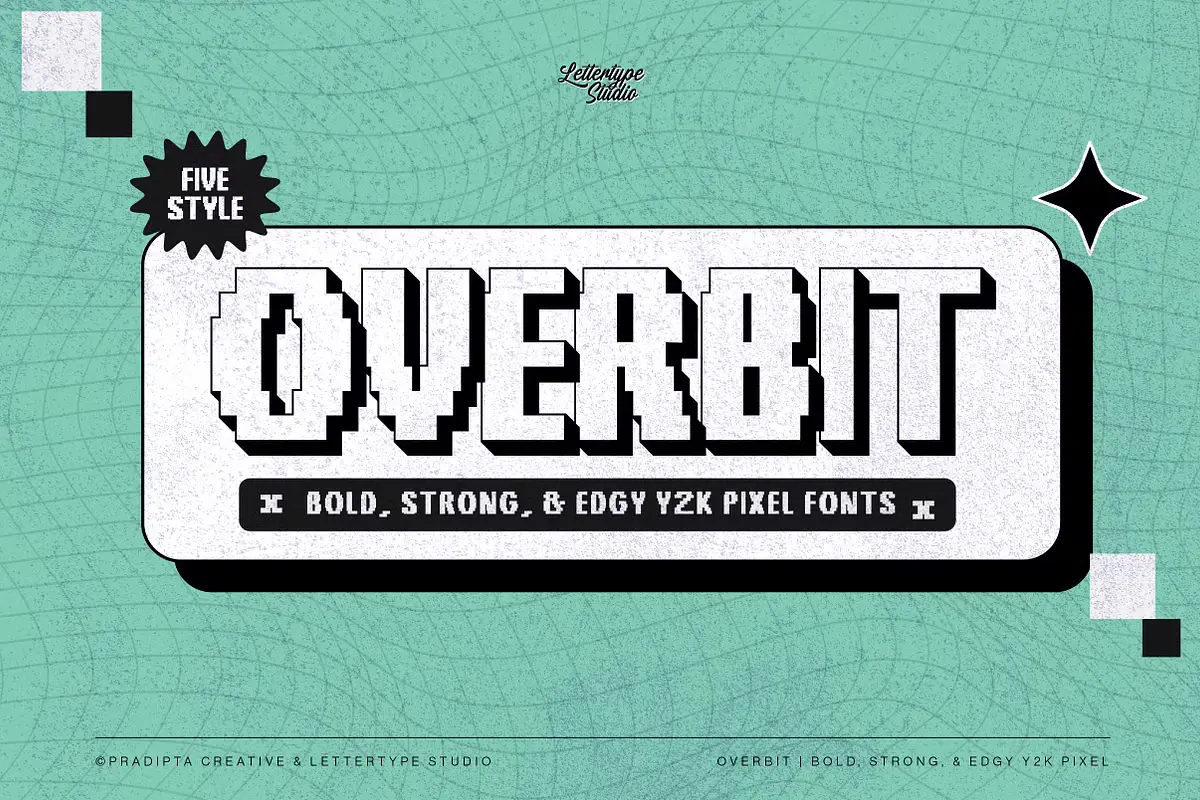
Overbit Font: Bold Y2K Pixel
Overbit Font is a bold, strong, and edgy pixel Y2K font that blends nostalgic 80s and early 2000s aesthetics. This font is ideal for designers looking to create eye-catching, retro-inspired designs. Whether you are working on headlines, logos, pixel games, posters, websites, or editorial layouts, Overbit Font delivers a striking and playful touch. Its versatility makes it an excellent choice for digital and print media.
With its pixelated charm, Overbit Font is reminiscent of old-school arcade games and early digital typography, making it a perfect option for 8-bit game interfaces and vintage-themed projects. The structured yet dynamic appearance ensures your designs stand out while maintaining readability across different sizes and formats.
Overbit Pixel Font
Key Features of Overbit Font
Overbit Font comes packed with features that make it an attractive choice for designers and creatives. Here’s why it stands out:
- Bold and Edgy Design: The pixelated and sharp-edged appearance gives a strong visual presence, making it ideal for high-impact designs.
- Multiple Styles: It includes five unique styles—Regular, Outline, Italic, Shadow, and Shadow Bold, allowing for creative flexibility.
- Multilingual Support: Supports multiple languages, making it accessible to global designers.
- Scalable for Different Uses: Works well in both large and small sizes, ensuring clarity and legibility in various applications.
- Perfect for Various Projects: Suitable for game interfaces, website elements, posters, branding, and editorial designs.
Why Choose Overbit Font?
Overbit Font is a top choice for designers who want to bring a unique, retro-futuristic look to their projects. Here’s why this font stands out:
- Retro Meets Modern: The Y2K fonts aesthetic is making a comeback, and Overbit Font perfectly captures the essence of that era while remaining fresh and contemporary.
- Ideal for Gaming and Tech Designs: If you are designing for 8-bit games, pixel font art projects, or tech-related branding, this font is an excellent fit.
- High Readability: Despite its bold and pixelated style, Overbit Font maintains clarity, making it easy to read even at smaller sizes.
- Easy to Use: The variety of styles allows for easy customization to match different design needs.
Where to Use Overbit Font
Overbit Font is highly adaptable and can be used across various mediums. Here are some ideal applications:
- Pixel Games & UI Design: Perfect for 8-bit games, game interfaces, and digital applications.
- Branding & Logos: Great for businesses wanting a nostalgic yet modern appeal.
- Posters & Flyers: Creates bold, attention-grabbing titles and headlines.
- Web & Editorial Use: Enhances website headers, blog titles, and digital content.
- Merchandise & Apparel: Adds a retro vibe to clothing designs, stickers, and other print items.
Final Thoughts
Overbit Font is a must-have for anyone looking to incorporate a bold, nostalgic, and edgy pixel aesthetic into their designs. With its multiple styles, multilingual support, and strong visual impact, this font is an excellent addition to any creative toolkit.